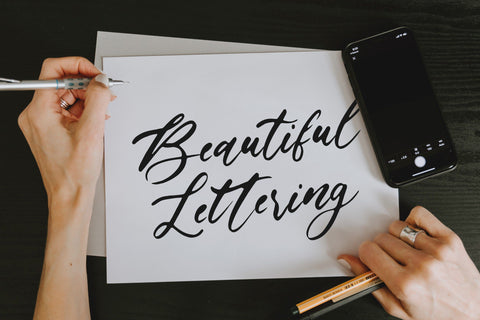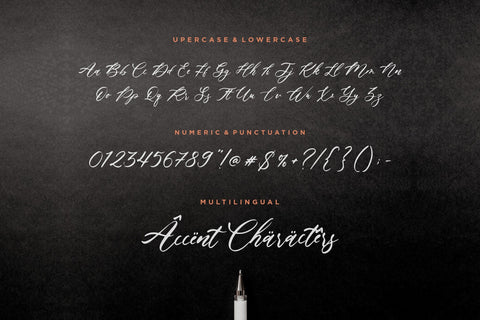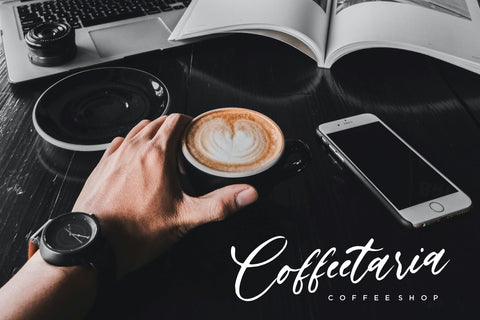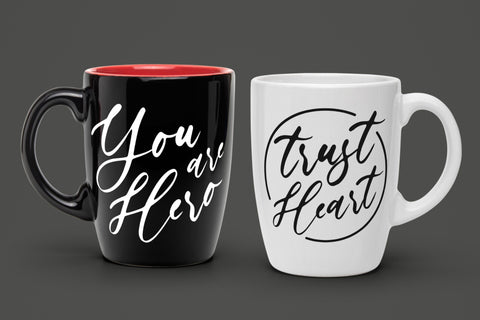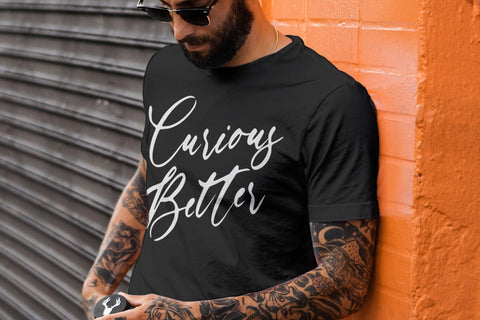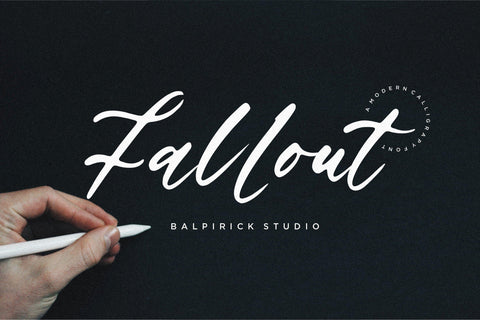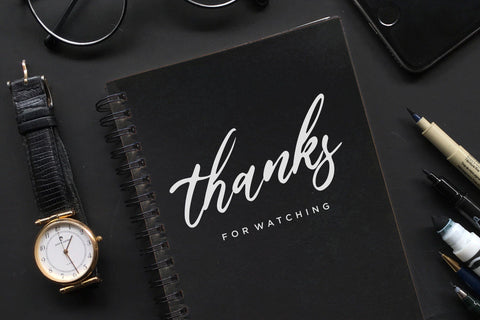
Fallout Modern Calligraphy Font
Proudly Present, Fallout Font.
Fallout is a Modern Calligraphy Font.
Fallout is a flowing handwritten font, described by an elegant touch, perfect for your favorite projects. Fall in love with its incredibly distinct and timeless style and use it to create spectacular designs!